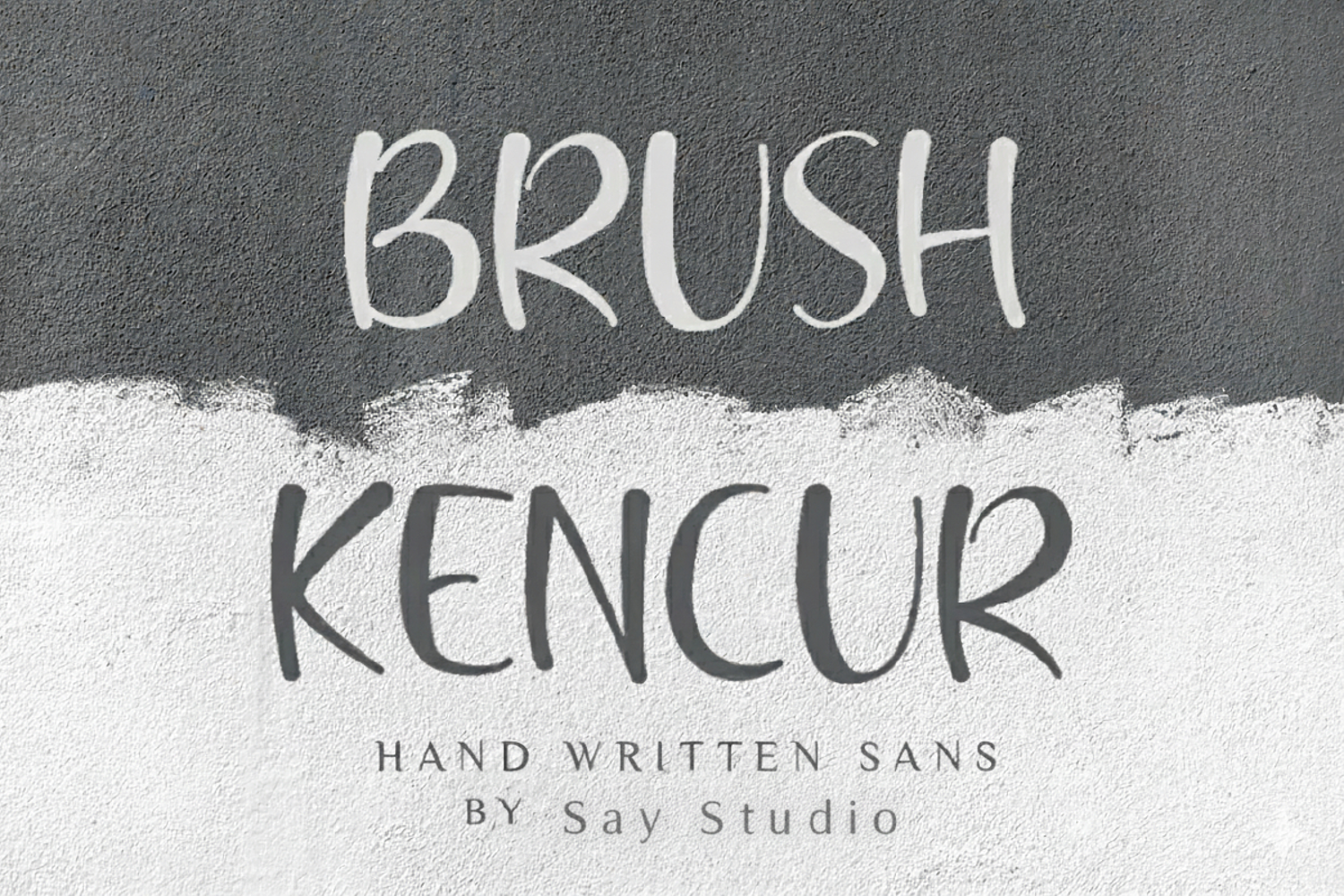
Brush KEcnur - Handwritten Sans Font
Brush Kencur is a playful handwritten sans font with smooth brush-style strokes that feel natural and expressive. Its relaxed curves and casual texture make it perfect for branding, packaging, posters, quotes, and creative display projects. The font brings an approachable, artistic personality that works beautifully in both digital and print designs.